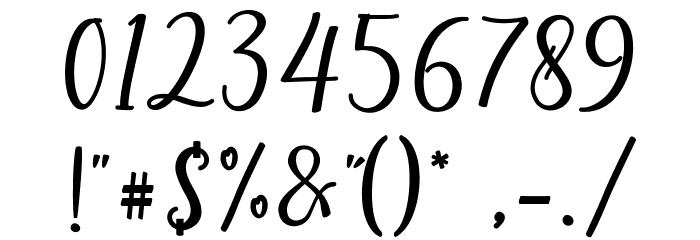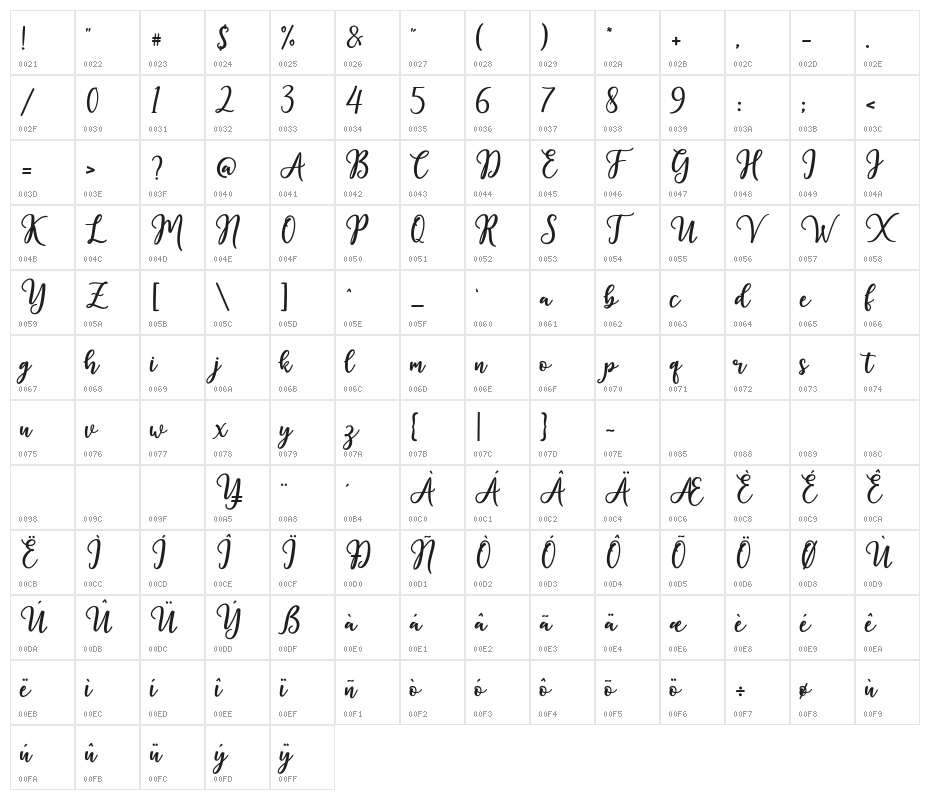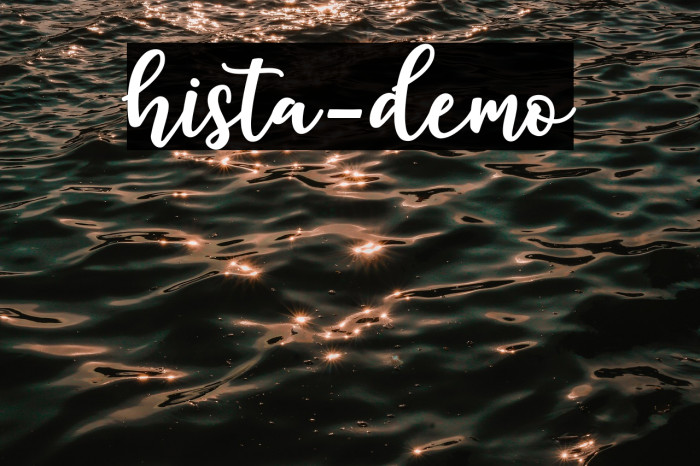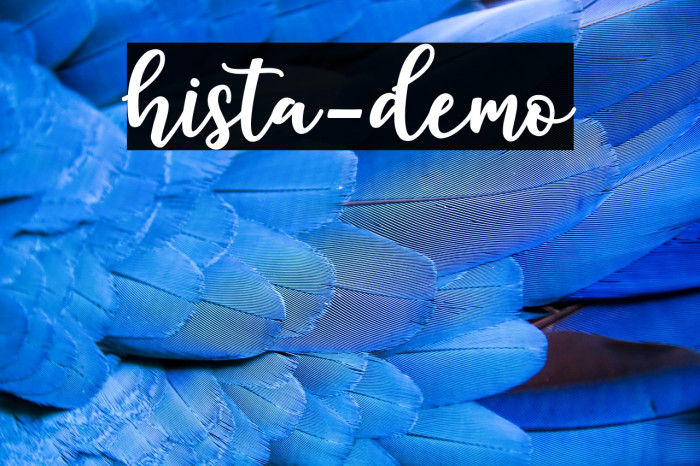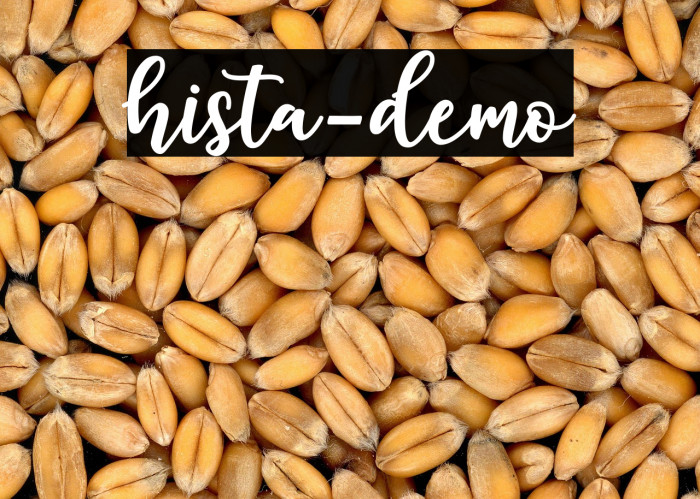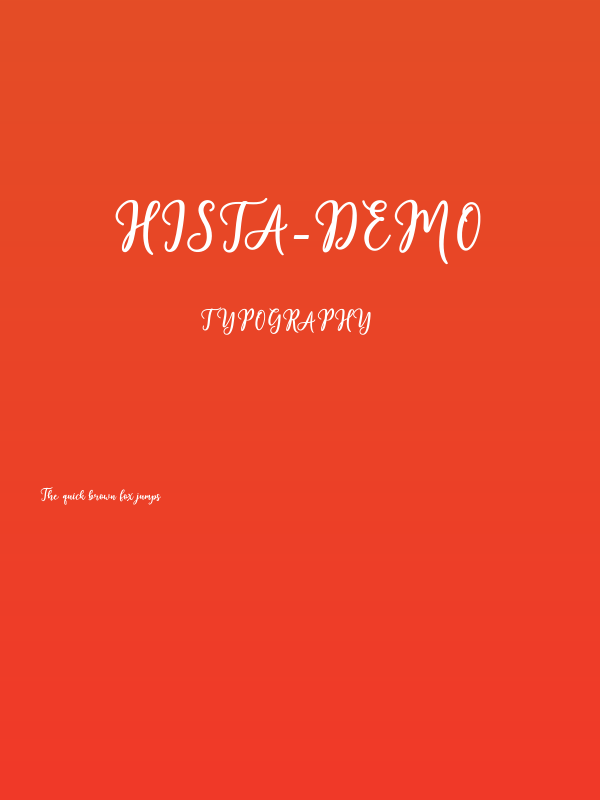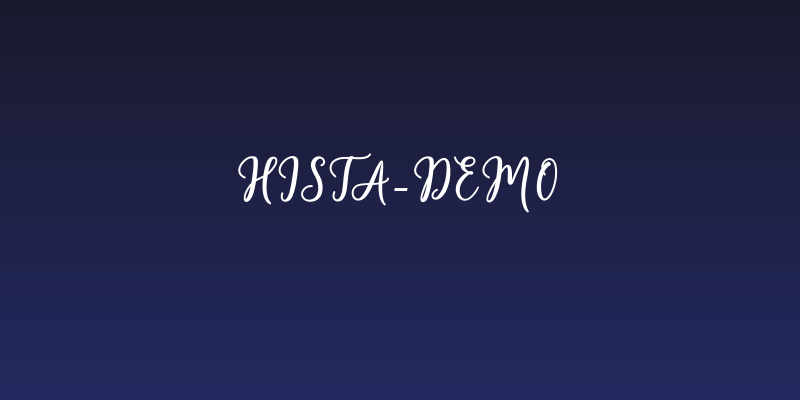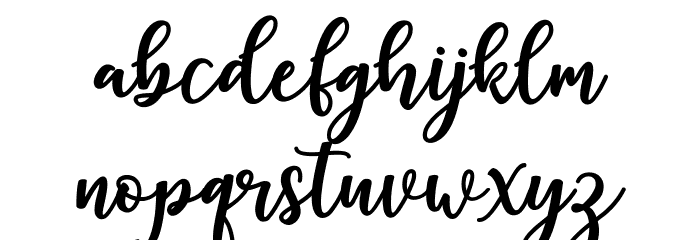
hista-demo Font
hista-demo Description
This font features a lively and flowing script style, characterized by its elegant, cursive letterforms. The uppercase letters are slightly more ornate, with sweeping curves and loops that add a touch of sophistication. The lowercase letters maintain a consistent flow, enhancing readability while preserving the font's decorative nature. The numbers are designed to match the script style, with smooth curves and a balanced appearance. Special characters are integrated seamlessly, maintaining the overall aesthetic. This font is ideal for projects that require a personal, handwritten touch, such as invitations, greeting cards, or branding materials.